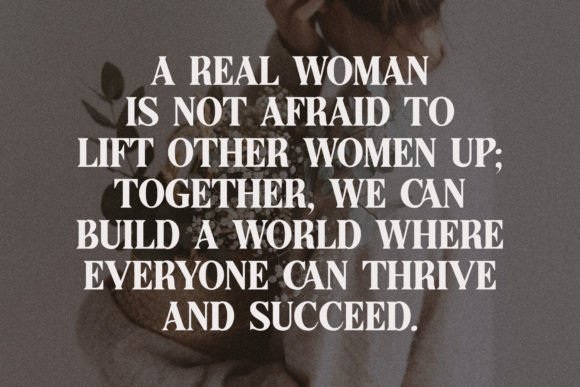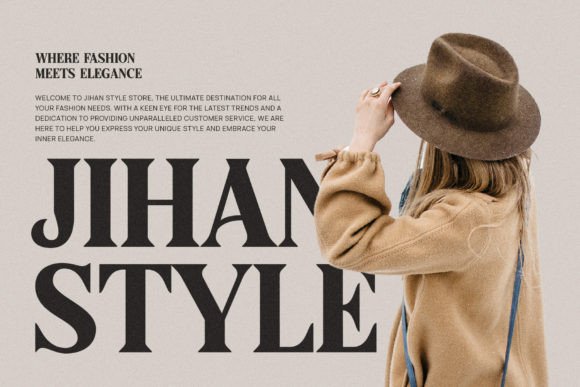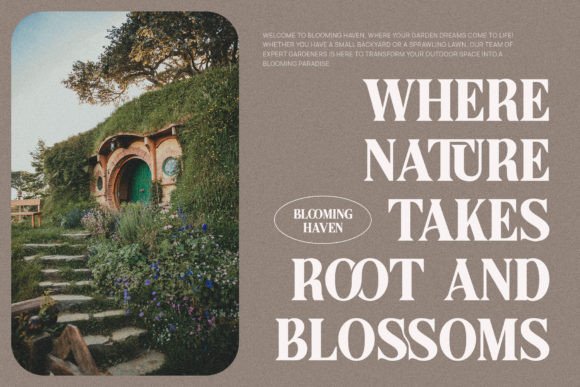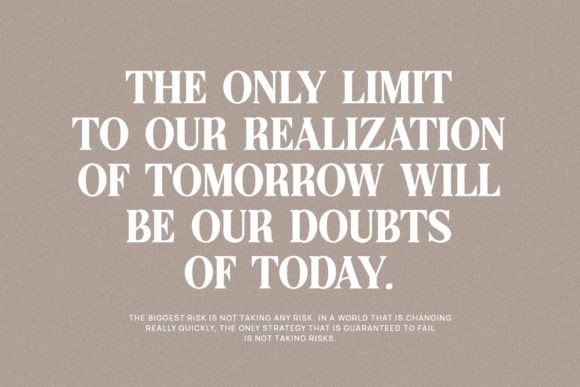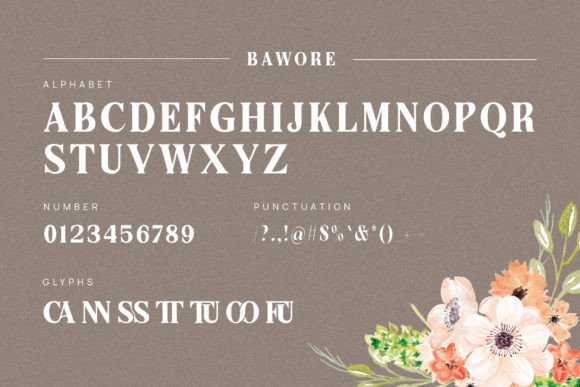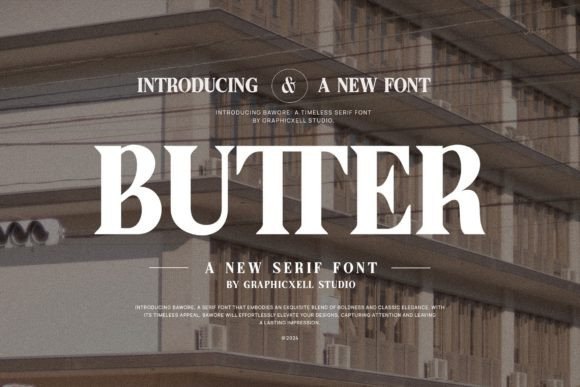
Elegance Redefined: The Versatility of Butter Font
In the world of typography, the right font can elevate a design from ordinary to extraordinary. For designers and crafters seeking a blend of elegance and modernity, the Butter Font stands out as a premier choice. This elegant serif typeface combines classy and modern styles, making it incredibly versatile for a wide range of design needs.
Unpacking the Elegance of Butter Font
Butter Font is characterized by its refined serif features, which lend an air of sophistication to any project. The font’s design strikes a perfect balance between traditional elegance and contemporary style, making it suitable for projects that require a touch of luxury and modern appeal. Whether you’re working on branding projects, logos, wedding designs, or social media posts, Butter Font brings a level of class that is hard to match.
A Font for Diverse Design Needs
One of the key advantages of Butter Font is its versatility. This typeface is not limited to a specific type of design but can be seamlessly integrated into various projects, including:
- Branding Projects: Establish your brand’s identity with a sophisticated and modern typeface.
- Logos: Create memorable and elegant logos that stand out.
- Wedding Designs: Add a touch of elegance to wedding invitations, stationery, and decor.
- Social Media Posts: Elevate your content with a stylish and readable font.
- Advertisements: Grab attention with a classy and modern typeface.
- Product Packaging and Designs: Enhance your product’s visual appeal with an elegant serif font.
- Labels and Photography: Use the font for labels and watermarks to add a professional touch.
- Invitations and Stationery: Perfect for creating sophisticated and stylish invitations and stationery.
Readability and Practicality
Beyond its aesthetic appeal, Butter Font is designed with a high level of readability in mind. This makes it not only beautiful but also practical for use in a variety of contexts, from digital media to print. The font’s clarity ensures that your message is conveyed effectively, whether it’s in a blog post, a product description, or an advertisement.
PUA Encoding for Ease of Use
Butter Font comes with PUA (Private Use Area) encoding, a significant advantage for designers. PUA encoding allows easy access to all the amazing glyphs and ligatures that the font has to offer. This means you can effortlessly incorporate special characters and stylish alternates into your designs, enhancing their visual appeal without needing to manually create these elements.
Why Choose Butter Font?
For designers and crafters looking for a typeface that combines elegance, modernity, and versatility, Butter Font is an excellent choice. Its suitability for a wide range of projects, combined with its readability and PUA encoding, makes it a valuable asset for any designer looking to elevate their work.
Butter Font is more than just a typeface; it’s a design solution that caters to the needs of modern designers and crafters. Its elegant serif design, combined with a classy and modern style, makes it perfect for a multitude of design projects. With its high readability and PUA encoding for easy access to glyphs and ligatures, Butter Font is poised to become a go-to choice for professionals seeking to add a touch of elegance and sophistication to their creations.